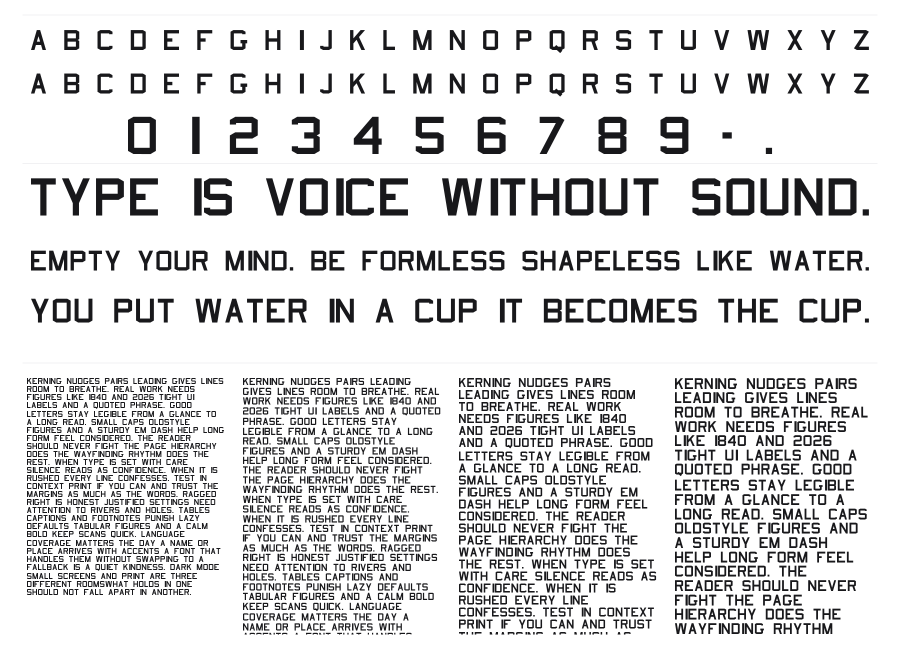
USN Stencil
by Fulcrum
USN Stencil is a bold, uppercase stencil face from Fulcrum with the no-nonsense geometry of military markings on crates and equipment. The letterforms are heavy and industrial, with clean stencil breaks that feel functional rather than decorative. A solid pick for headlines, signage, and packaging where you want that unmistakable military surplus aesthetic.